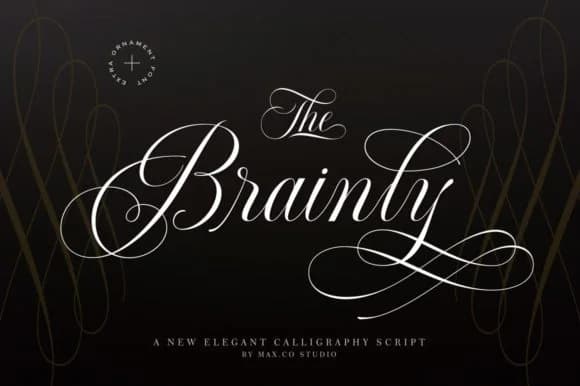
This script speaks with quiet elegance, the kind that signals both restraint and wealth in equal measure. Brainly Font, designed by Max.co Studio, brings flowing letterforms to projects where sophistication is the whole point, not an afterthought added at the end.
The real strength sits in its generous swashes and included ornament set, delivered as TTF within the download. You'll find this font shines across wedding invitation suites, luxury beauty and skincare packaging, boutique business cards, and upscale event announcements without looking overwrought or busy. The swashes are bold enough to anchor a layout on their own, yet refined enough that they read as intentional and controlled rather than decorative noise for its own sake. Every glyph has been shaped for both headline and body-text work, giving you genuine flexibility across print and digital applications. That range matters when you're working with clients who need visual consistency across business cards, website headers, social media graphics, and packaging all at once.
Pair Brainly with a clean, thin-weight sans-serif for any supporting body copy, letting the script shine in titles and focal areas where it can breathe and lead. It's ready to download on Creative Fabrica right now for any designer building a genuinely elegant portfolio.
- Elegant, Flowing
Brainly Font is a script font that shines as a display or heading face. Pair it with a clean sans-serif or serif font for body text β the contrast creates a clear hierarchy while the two styles stay balanced and easy to read.